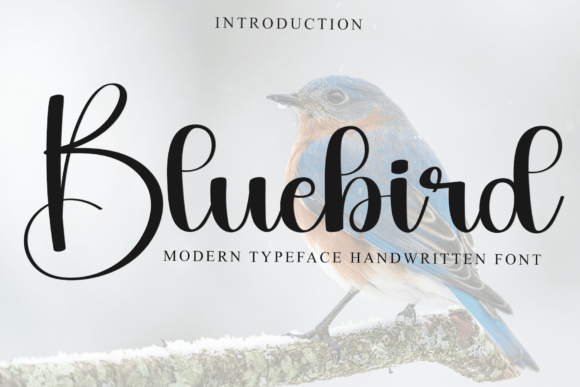
Introducing Bluebird Font: A Festive and Merry Typeface for the Holiday Season
The holiday season is a time for joy, giving, and celebration. What better way to capture the spirit of this special time of year than with a font that’s as festive and merry as Bluebird Font? This decorative typeface is designed to add a touch of enchantment to your designs, making it perfect for greeting cards, gift tags, and holiday-themed projects.
The Magic of Bluebird Font
Bluebird Font is a whimsical and charming typeface that’s sure to bring a smile to anyone’s face. Its decorative elements and nostalgic ambiance evoke a sense of wonder and magic, making it the perfect choice for anyone looking to add a little extra something special to their designs.
Whether you’re creating holiday greeting cards, gift tags, or festive decorations, Bluebird Font is the perfect choice. Its unique and playful design is sure to capture the attention of your audience and leave a lasting impression.
Key Features of Bluebird Font
- Decorative Elements: Bluebird Font features a range of decorative elements, including intricate swirls and flourishes, that add a touch of elegance and sophistication to your designs.
- Whimsical Flair: This font’s whimsical flair makes it perfect for creating festive and fun designs that capture the spirit of the holiday season.
- Perfect for Holiday Projects: Whether you’re creating holiday greeting cards, gift tags, or festive decorations, Bluebird Font is the perfect choice.
The Benefits of Using Bluebird Font
So why choose Bluebird Font for your holiday designs? Here are just a few benefits of using this amazing font:
- Adds a Touch of Enchantment: Bluebird Font’s decorative elements and whimsical flair add a touch of enchantment to your designs, making them stand out from the crowd.
- Perfect for a Range of Projects: Whether you’re creating holiday greeting cards, gift tags, or festive decorations, Bluebird Font is the perfect choice.
- Unique and Playful Design: This font’s unique and playful design is sure to capture the attention of your audience and leave a lasting impression.
Tips for Using Bluebird Font
Here are a few tips for getting the most out of Bluebird Font:
- Use it for Holiday Greeting Cards: Bluebird Font is perfect for creating festive and fun holiday greeting cards that will delight your friends and family.
- Add it to Your Gift Tags: Add a touch of elegance and sophistication to your gift tags with Bluebird Font.
- Use it for Festive Decorations: Bluebird Font is perfect for creating festive decorations, such as holiday banners and signs.
- Experiment with Different Colors: Try out different colors and combinations to see what works best with Bluebird Font.
In conclusion, Bluebird Font is a festive and merry typeface that’s perfect for capturing the spirit of the holiday season. Its decorative elements and whimsical flair make it a great choice for a range of projects, from holiday greeting cards to festive decorations. With its PUA encoding, you can access all of the amazing glyphs and ligatures with ease. So why wait? Download Bluebird Font today and let your typography shine with the magic of this beautiful font!
- What is Bluebird Font? Bluebird Font is a festive and merry typeface that’s perfect for capturing the spirit of the holiday season.
- What makes Bluebird Font special? Bluebird Font features decorative elements and a whimsical flair that make it perfect for creating festive and fun designs.
- What can I use Bluebird Font for? Bluebird Font is perfect for a range of projects, including holiday greeting cards, gift tags, and festive decorations.